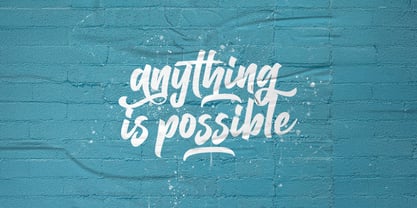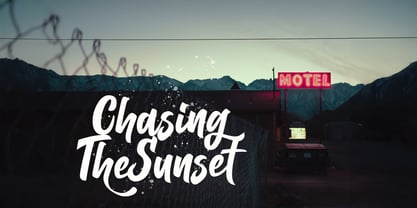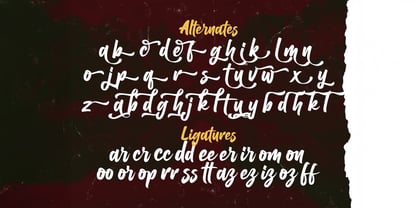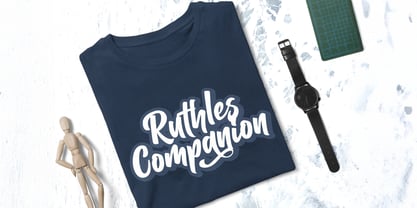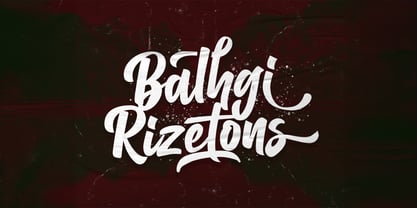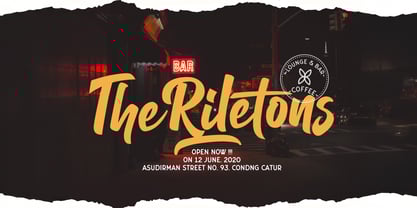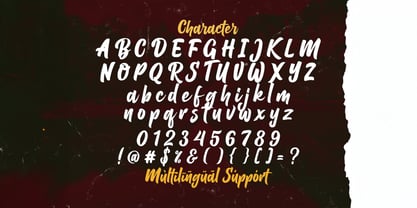
Balhgi Rizetons
The Balhgi Rizetons Font Family was designed by Virgiawan Listanto and published by Stringlabs Creative Studio. Balhgi Rizetons contains 1 styles. More about this family
Balhgi Rizetons is a flowing handwritten font, described by an elegant touch, perfect for your favorite projects. Fall in love with its incredibly distinct and timeless style and use it to create spectacular designs! This font is PUA encoded which means you can access all of the glyphs and swashes with ease!